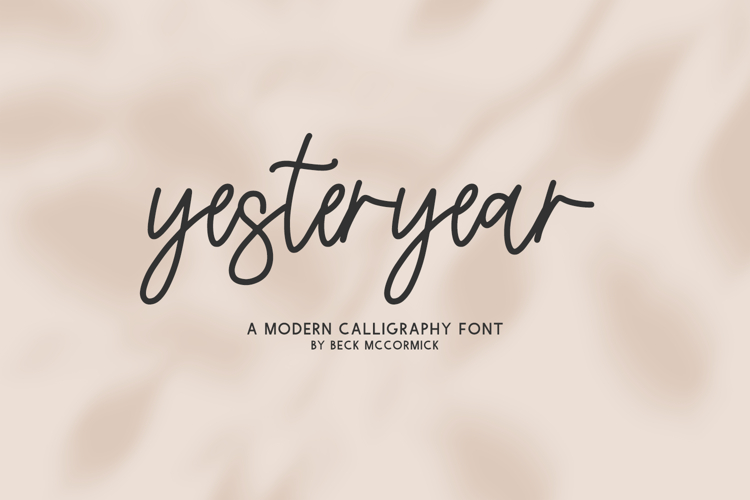
Yesteryear Script
Introducing Yesteryear Script, a handwritten monoline script.
Yesteryear Script includes:
- 26 alternates
- 11 ligatures - bb, dd, ff, ll, mm, nn, oo, pp, rr, ss, tt